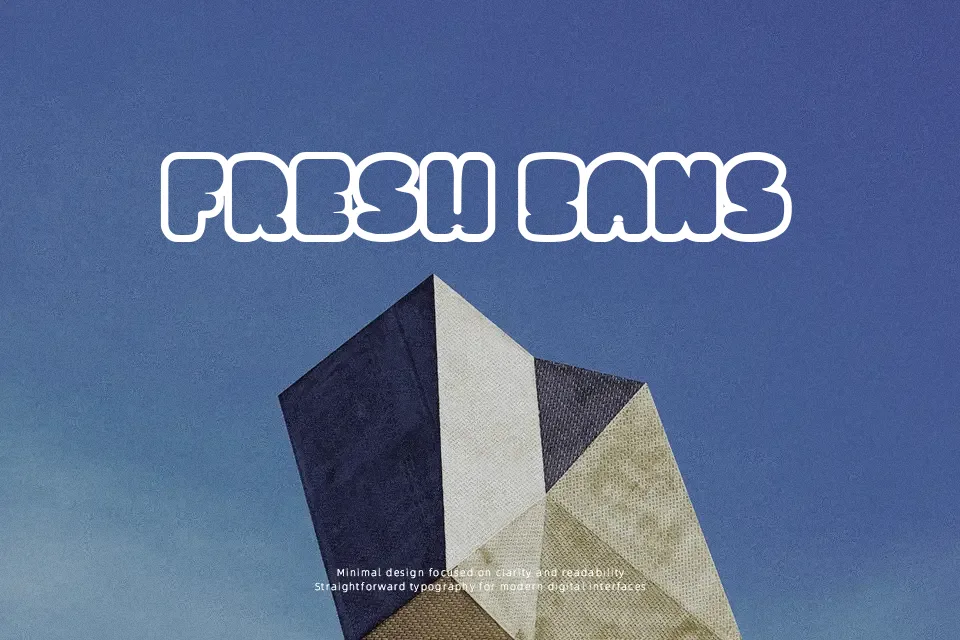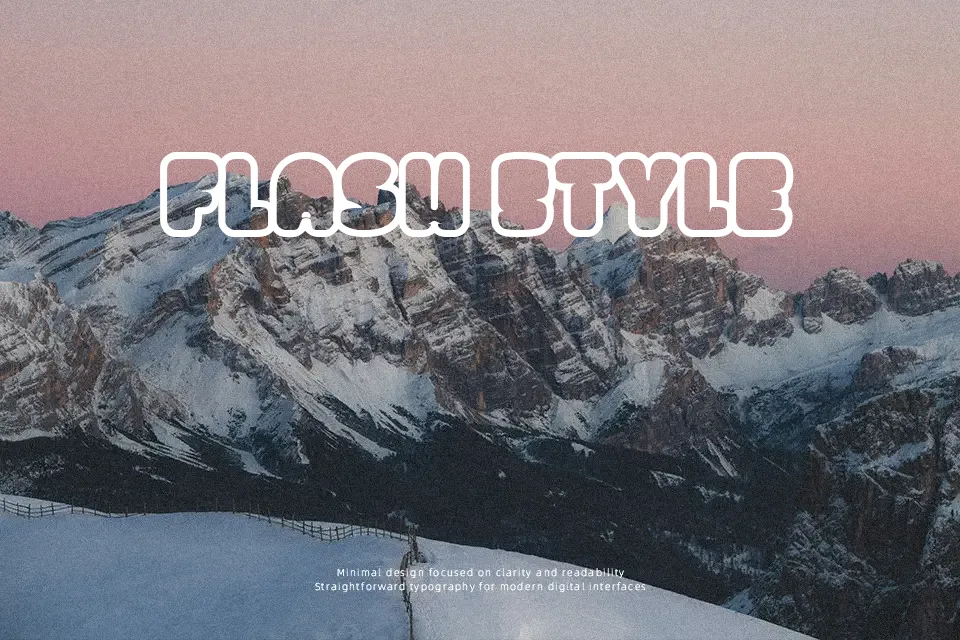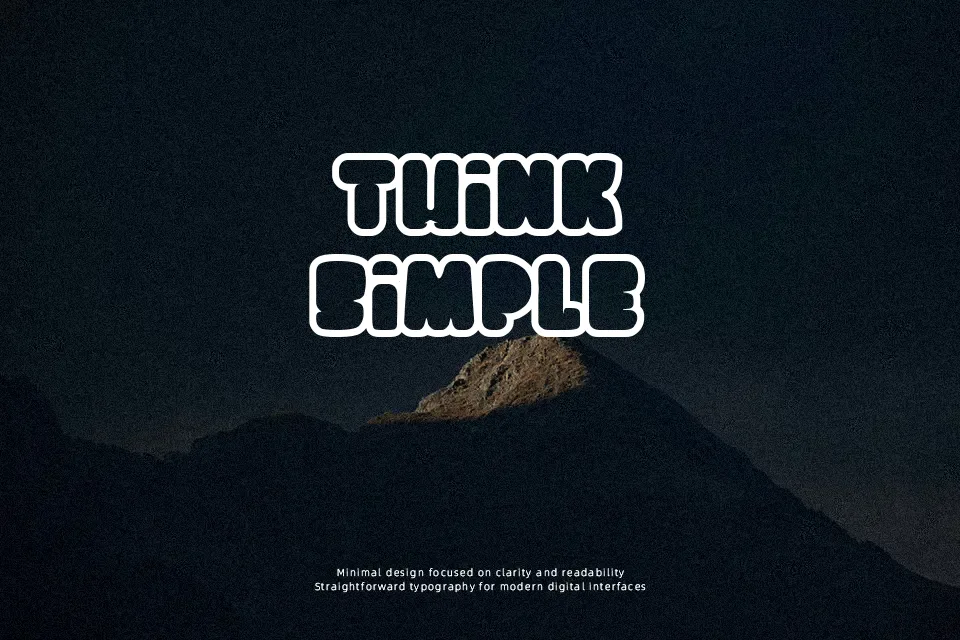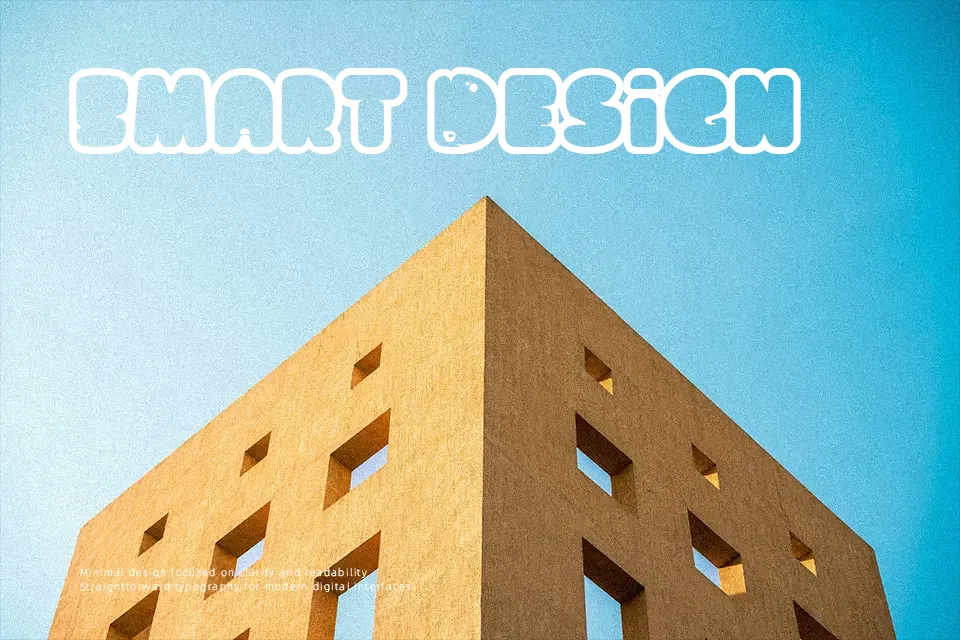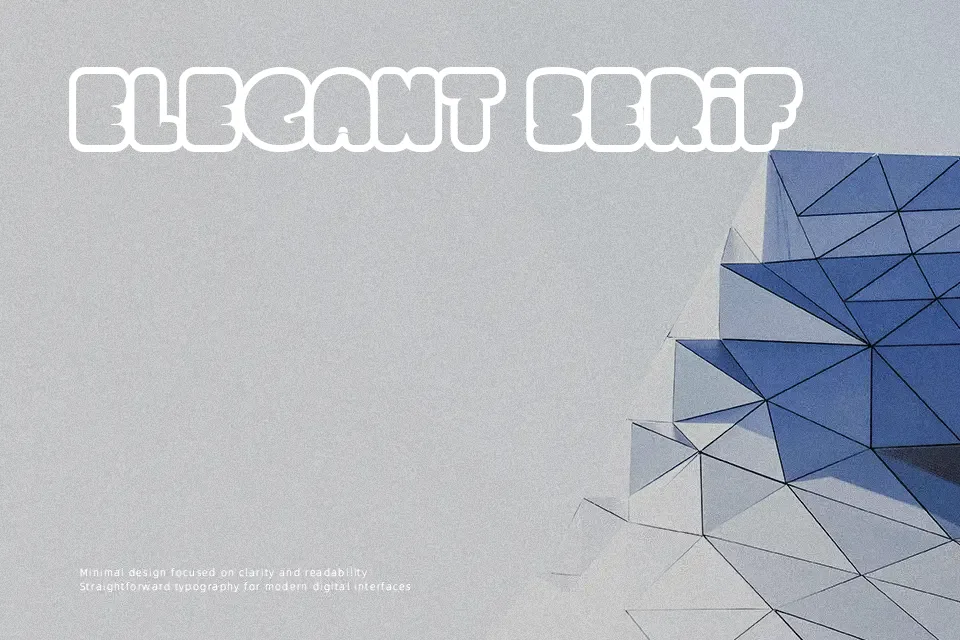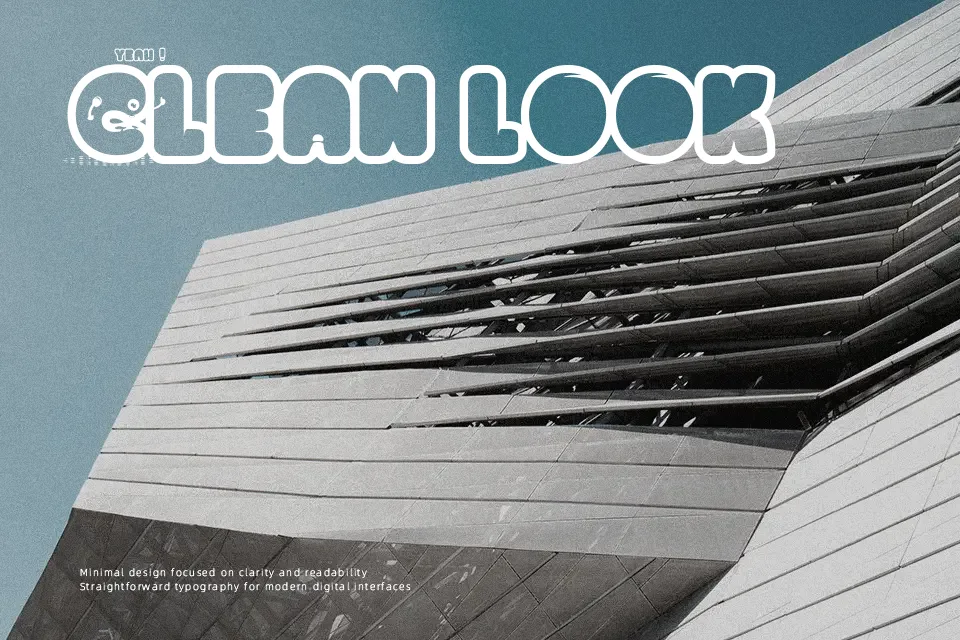
Chocolate Cake Font
Chocolate Cake Font stands out with exaggerated rounded contours, heavy stroke weights, and minimal internal counter space. The letterforms display extremely low stroke contrast, giving every character a plush, inflated silhouette with smooth curved terminals. Tight spacing brings adjacent glyphs close together, producing a dense, cohesive visual rhythm across short titles and merchandise headers. Proportions remain wide and grounded, ensuring high visual weight for dessert branding, party banners, and youth apparel graphics. However, the compact negative space causes counters to close up rapidly at smaller sizes, making the typeface impractical for long body paragraphs or technical captions.
– bakery product packaging
– children’s book cover titles
– party flyer headlines
– youth apparel graphics
– continuous body paragraphs
– mobile app interface labels
– formal legal documentation
– dense spreadsheet tables